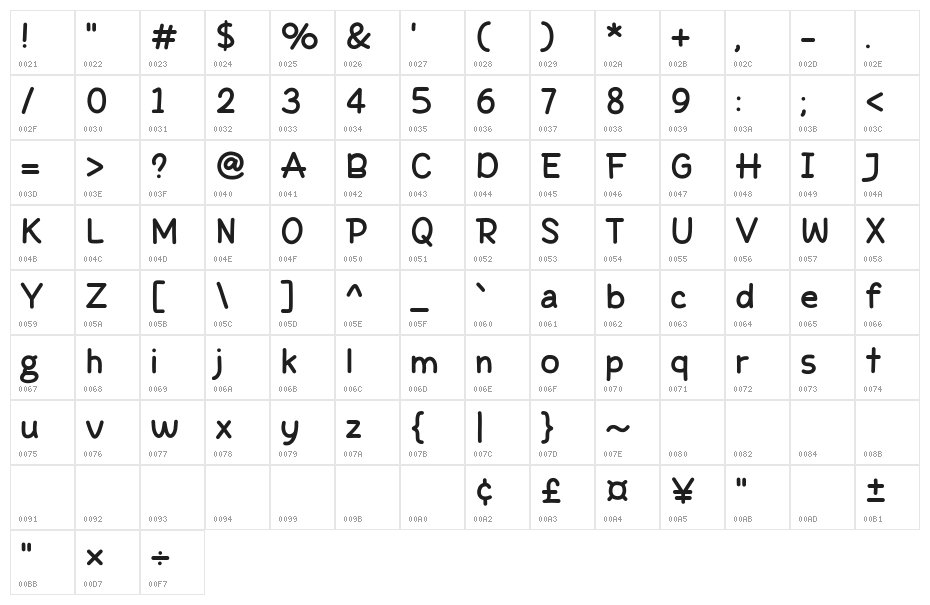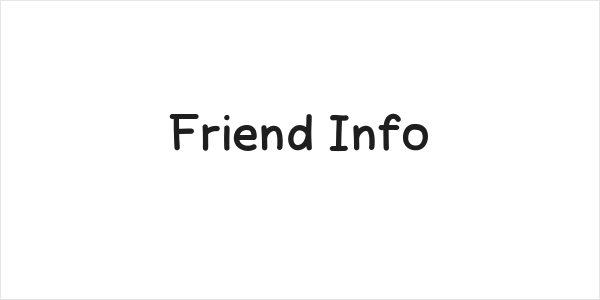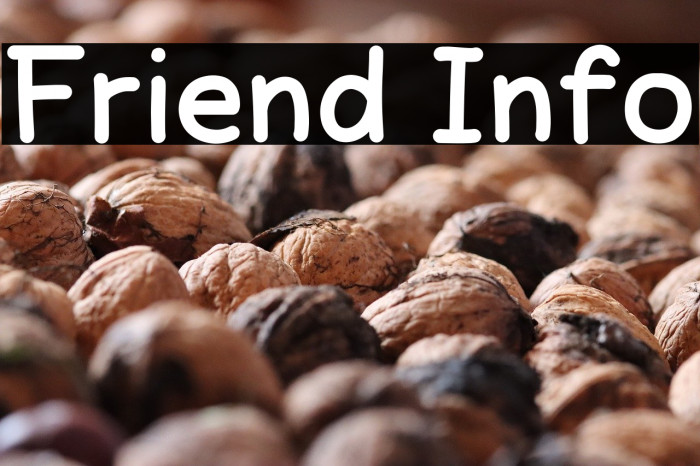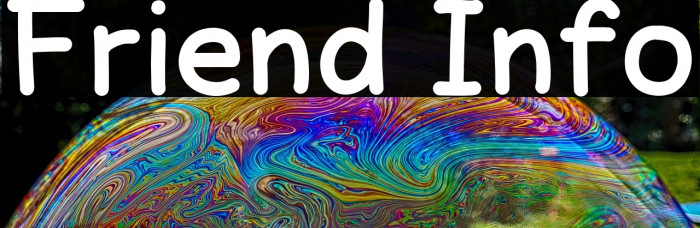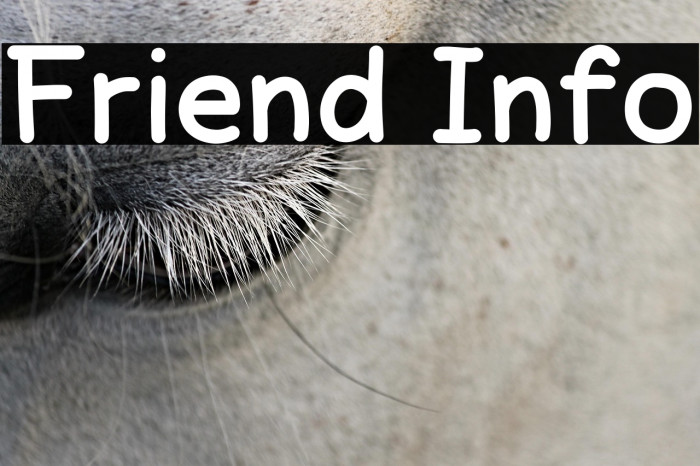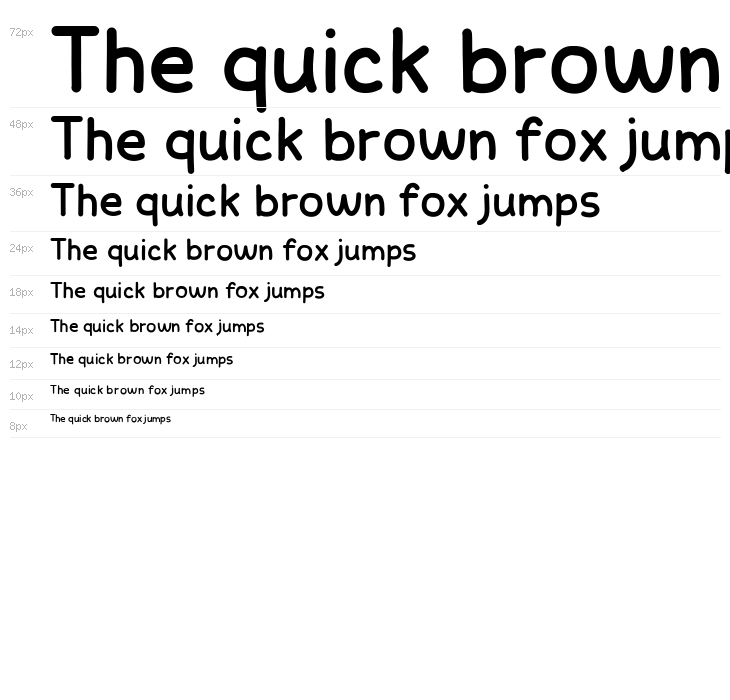
Friend Info Font
Friend Info Description
This font features a playful and friendly design, characterized by its rounded and slightly irregular letterforms. The strokes are consistent in weight, giving it a uniform appearance while maintaining a casual and approachable feel. The characters have a hand-drawn quality, which adds to its charm and warmth. The font includes a full set of uppercase and lowercase letters, numerals, and a variety of punctuation marks and special characters. Its style is reminiscent of handwriting, making it suitable for informal and creative applications.
| Proposed Projects | Ideal for children's books, greeting cards, playful branding, and informal invitations. |